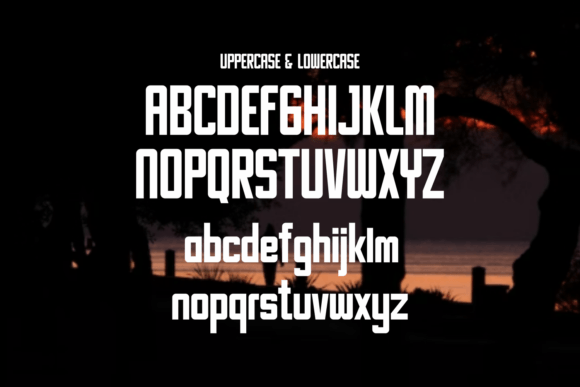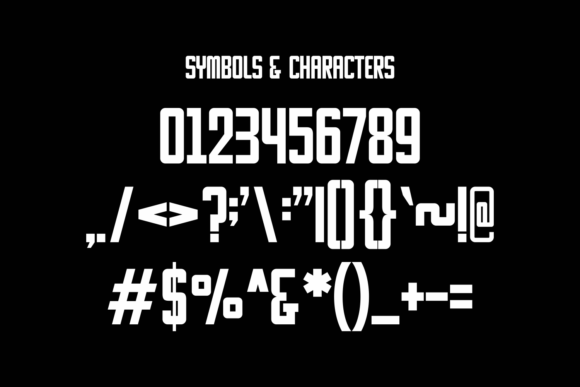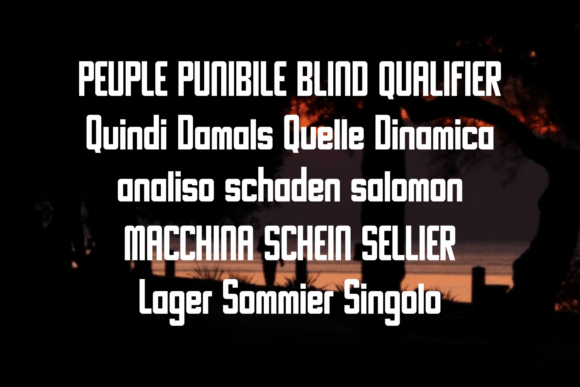
Introduction to Rasnico Font
Imagine you’re brainstorming ideas for a creative project, and you need a font that screams attention-grabbing headlines and bold statements. The search is over, as you’ve just discovered the Rasnico Font – a game-changing design resource that’s about to take your branding and visual identity to the next level.
As a designer, you know how crucial it is to have the right tools at your disposal to create stunning visuals that capture the essence of your message. That’s where the Rasnico Font comes in – a high-quality, versatile font that’s perfect for logos, posters, magazine covers, and so much more. With its transparent background and bold display style, this font is sure to elevate your design projects and leave a lasting impression.
Key Features of Rasnico Font
- Unique, modern font style with a transparent background, allowing for flexibility in design
- Designed for use at high resolutions, making it suitable for print and digital applications
Honest Review: Rasnico Font
I recently had the chance to work with the Rasnico Font for a creative project and I must say, it’s been a game-changer. The free download was a huge plus, as it saved me a lot of time and money. This design resource has quickly become one of my go-to choices for any project that requires a clean and modern look.
- ✨ One of the things that works well with the Rasnico Font is its high-quality design. The font is incredibly sharp and legible, making it perfect for both digital and print projects.
- ✨ Another great feature is the transparent background, which allows for seamless integration with any design element.
While the Rasnico Font is an excellent choice for many projects, there are a few limitations to consider.
- ⚠️ The font may not be suitable for projects that require a lot of bold or dramatic text. It’s best used for clean and simple designs.
- ⚠️ Additionally, some users may find the font to be a bit too minimalist, which can limit its creative potential.
Overall, I’m thoroughly impressed with the Rasnico Font. Its high-quality design, transparent background, and free download make it an excellent choice for any creative project. While it may have some limitations, it’s definitely a design resource worth considering.
Rasnico Font
Tips for Getting the Most Out of Rasnico Font
For best results, use Rasnico Font with a transparent background to give your designs a clean and professional look. You can also experiment with different font sizes and colors to add visual interest to your project.
Common Use Cases for Rasnico Font
Rasnico Font is a versatile design resource that can be used in a variety of creative projects, including logos, business cards, and social media graphics.
Compared to Rasnico Font, Open Sans Font is more versatile and has a wider range of applications. While Rasnico Font has a unique, handwritten feel, Open Sans Font is more modern and clean-cut.
Compared to Rasnico Font, Lato Font has a more polished and refined look. While Rasnico Font has a handwritten feel, Lato Font is more modern and sleek.